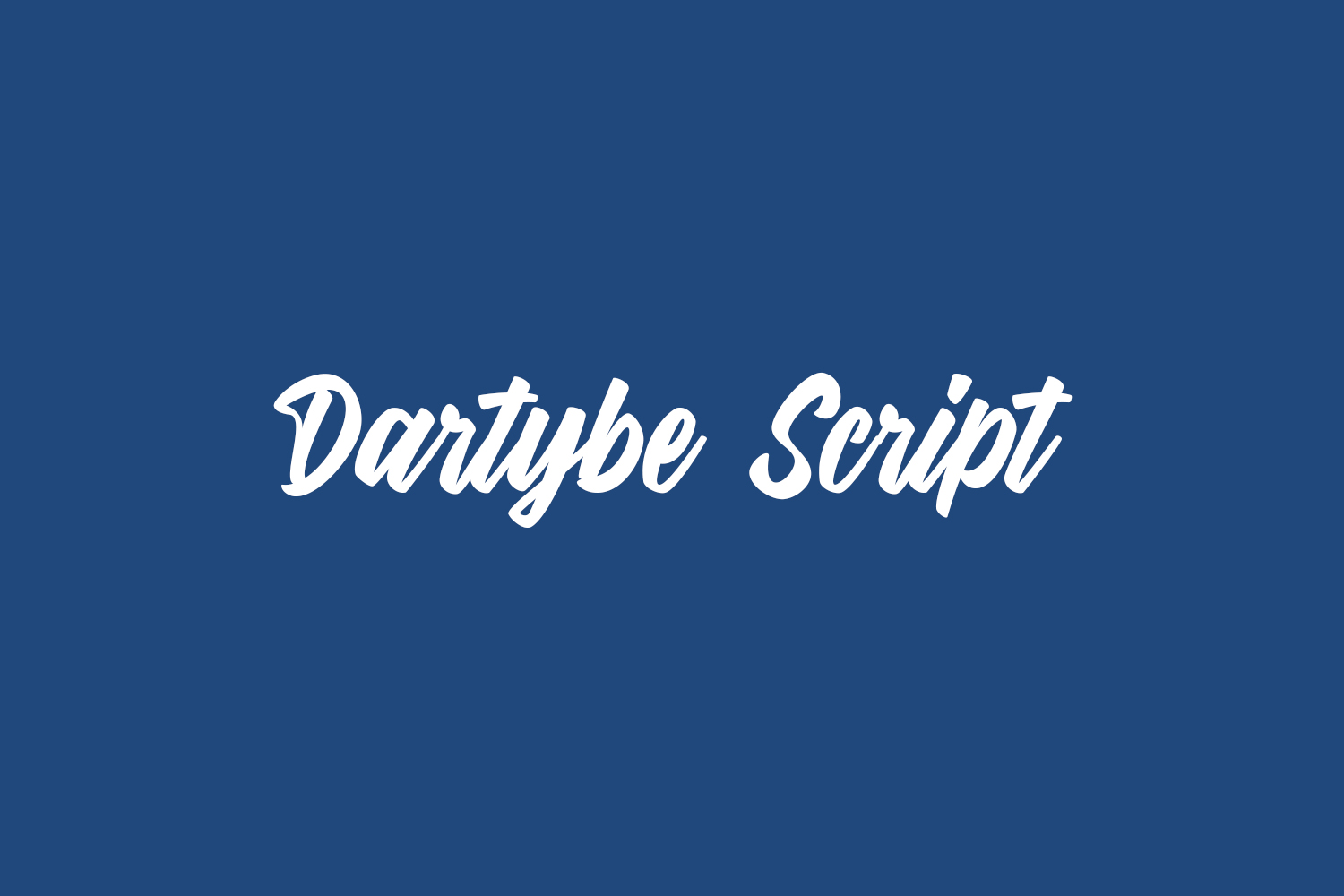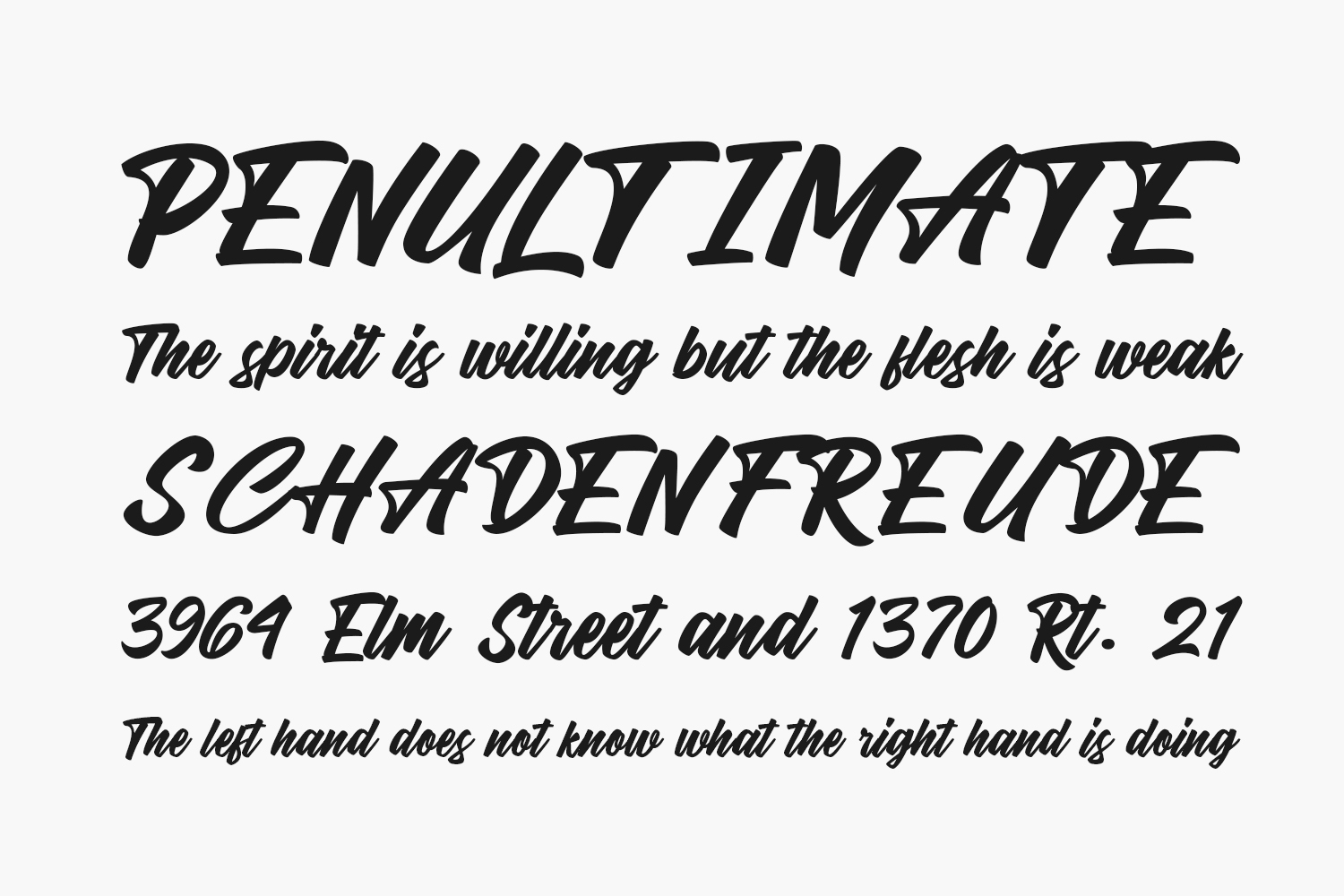
Experience the bold and retro-inspired charm of Dartybe Script Free Font, a carefully crafted font designed to infuse your headlines and logo projects with a touch of style. This font exudes strength, confidence, and dynamism, effortlessly bringing a wealth of nostalgic character to your designs. Dartybe Script Free Font is free for personal use only. Please purchase the full version for commercial use.